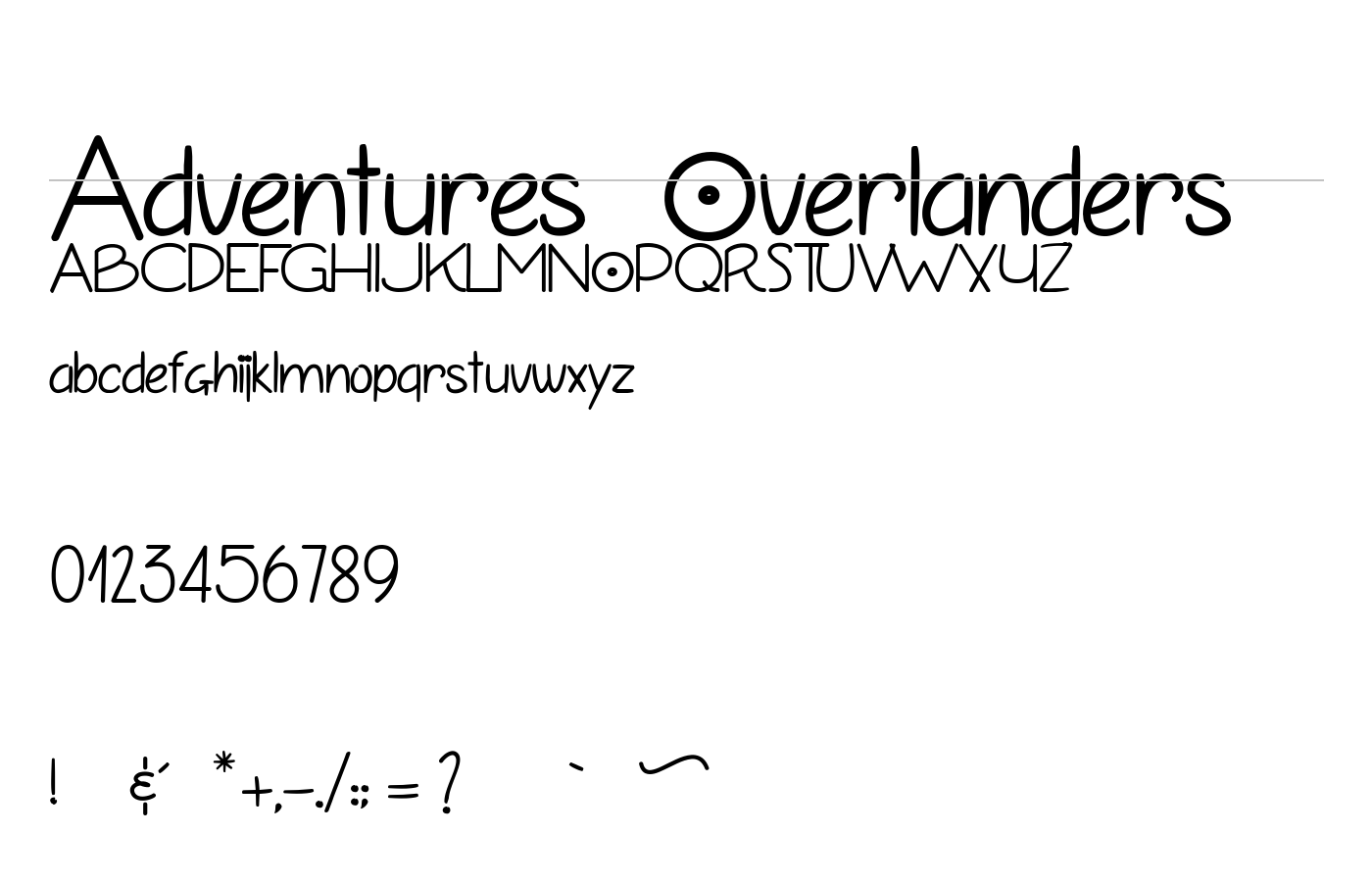
Adventures Overlanders is a playful and thin sans serif font with a hand-drawn, casual feel. Its tall, quirky letterforms with uneven strokes and unique characters give it a fun, friendly personality, making it ideal for creative projects, children’s content, or informal branding. This font works best in headlines or logos where a lighthearted, approachable vibe is desired.
Adventures Overlanders Font